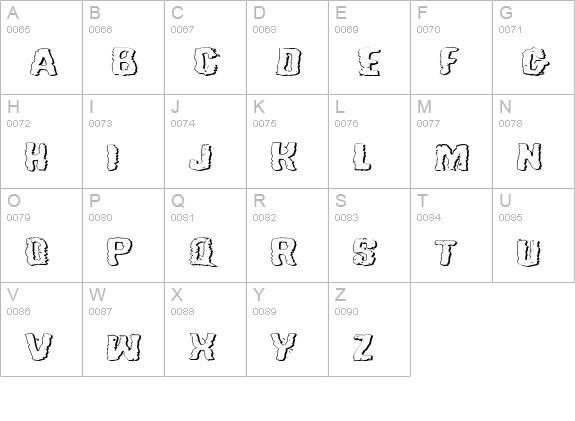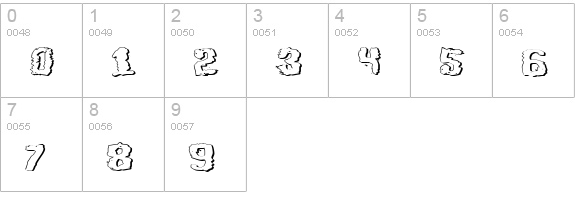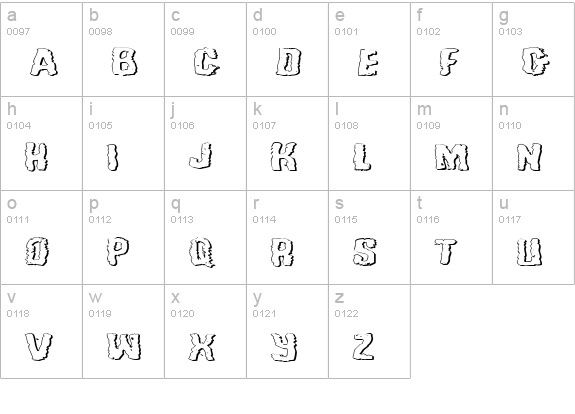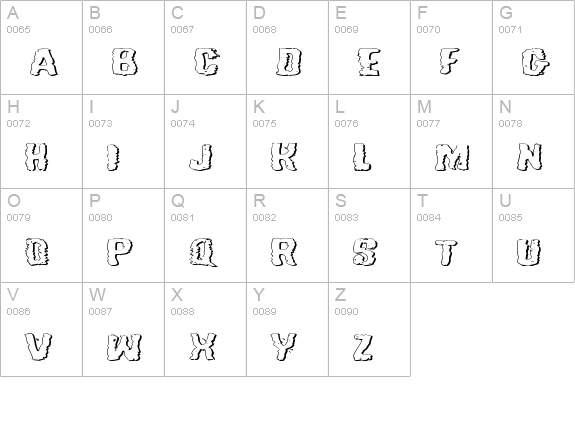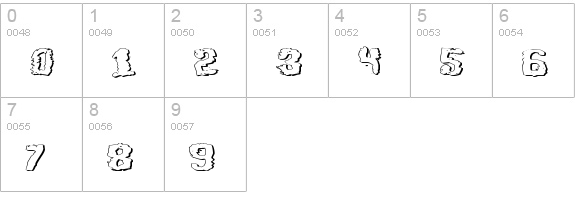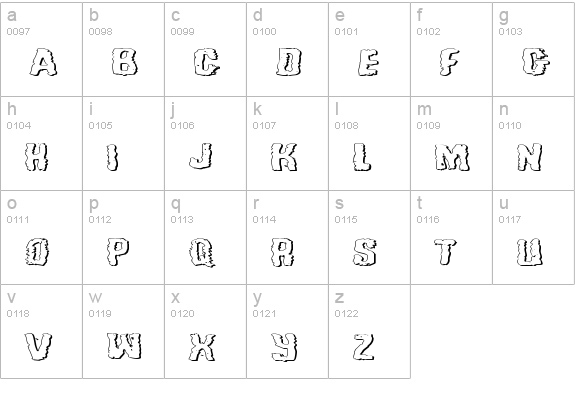
Tussle Expanded Outline Font Details
Tussle Expanded Outline is a distinctive, extended-width variant in the Tussle typeface family \xE2\x80\x94 well suited to design and typography projects.